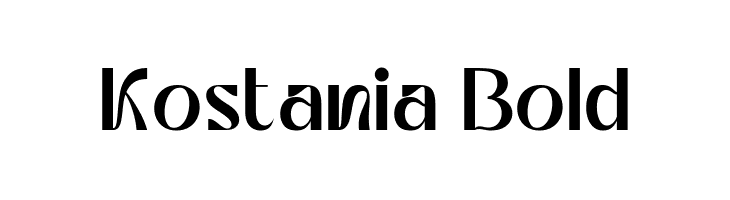
A three-dimensional cubic font with a modern, architectural style.
A bold, 3D, hand-drawn font with a rough, playful style.
A dynamic, hand-drawn font with a graffiti-like, expressive style.
A bold, flowing script font with elegant, interconnected letters.
A bold, decorative font with stars and stripes, evoking a patriotic theme.
A bold, brush-style script font with a hand-drawn, calligraphic flair.
A bold, playful handwritten font with rounded edges and a casual vibe.
A bold, artistic font with thick strokes and a whimsical style.
A bold serif font with high contrast and dramatic strokes, perfect for impactful headlines.
设计师偏爱 Qbicle 2 BRK, Surfaces 3D Rough Regular, ToolBox, Scrawler and Heartbeat,因为其造型干净、适用范围广—— 从品牌识别到落地页、海报都能胜任。